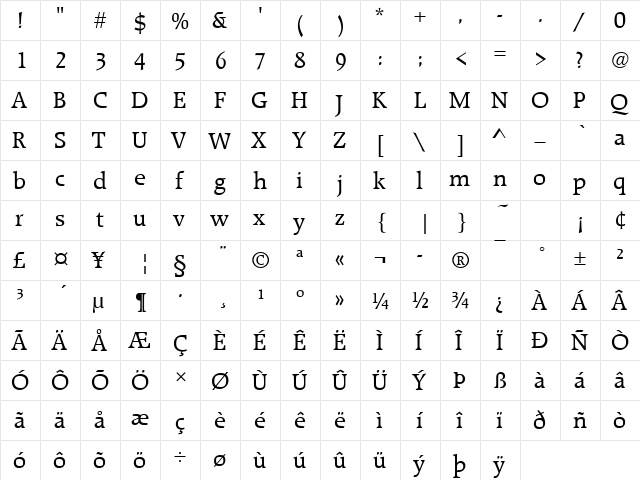
URWRadonDMed Regular
Design Context for URWRadonDMed Typeface
URWRadonDMed is a composed and adaptable typeface that performs quietly and consistently across a wide range of design contexts.